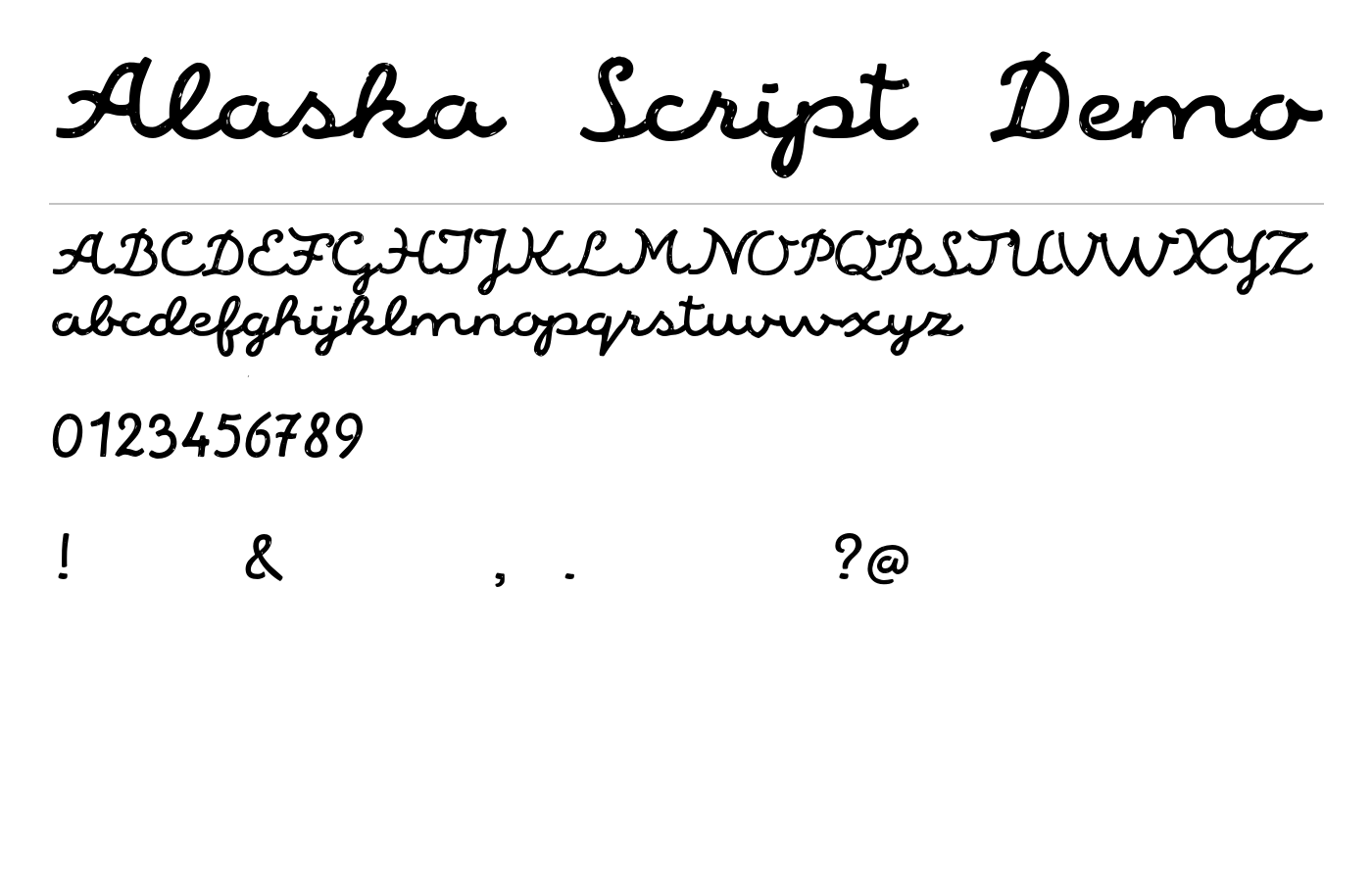
Alaska Script Demo is a lively, handwritten script font with a casual and friendly feel. Its medium weight and smooth, rounded strokes create an approachable style that works well for informal branding, invitations, and playful designs. The font’s elegant yet relaxed letterforms add a personal touch that is perfect for projects aiming to convey warmth and creativity.
| Font family | Alaska Script Demo Font |
| Designer | Roland Huse |